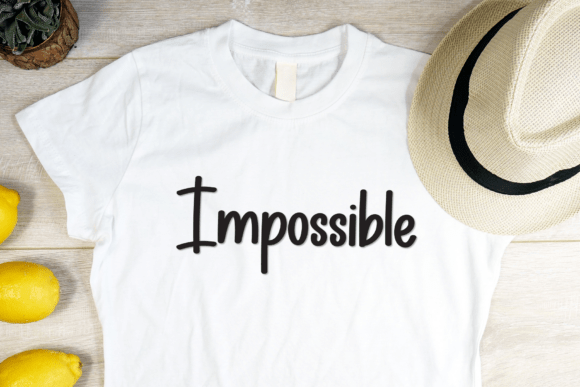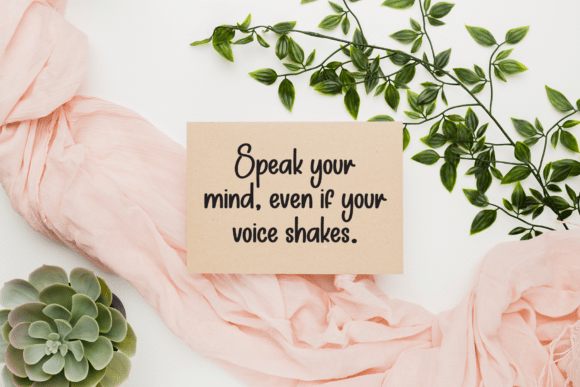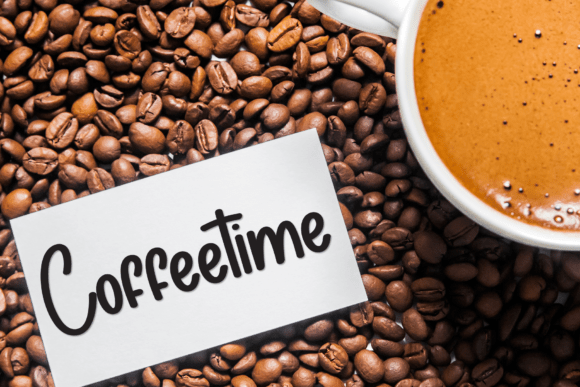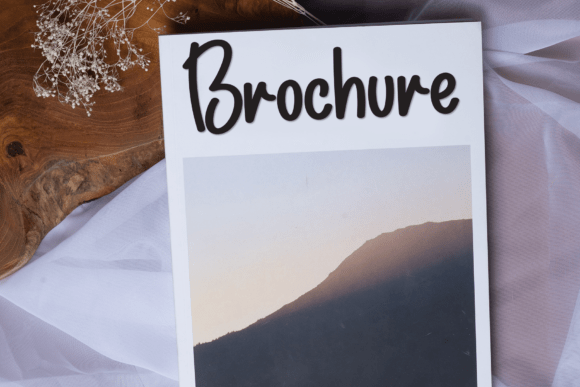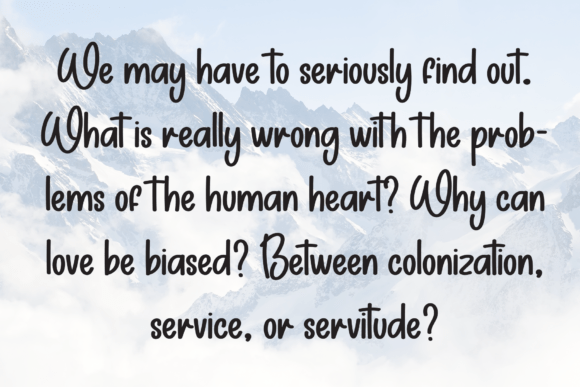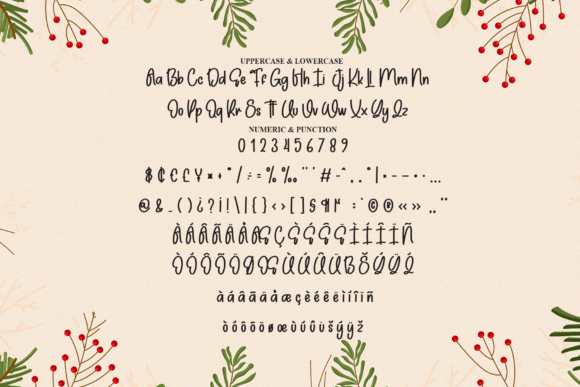
Introduction to Groovy Christmas Font
As you sit down to plan your holiday marketing materials, the excitement of the season can be overwhelming. But, let’s face it, finding the perfect font to match your festive vibe can be a challenge. That’s why we’re thrilled to introduce you to the Groovy Christmas Font, a design resource that’s sure to bring a smile to your face and a dash of holiday cheer to your creative project.
With its bold, modern display style and smooth, rounded strokes, the Groovy Christmas Font is the perfect way to add a playful, vintage twist to your seasonal marketing materials. Whether you’re designing holiday party invitations, festive social media graphics, or Christmas cards, this high-quality font is sure to make your design stand out.
Key Features of Groovy Christmas Font
- Unique and festive design for creative projects and holiday-themed materials
- Large character set with support for Latin and Cyrillic alphabets, as well as special characters and symbols
- Perfect for use in digital design, print materials, and web applications, including social media graphics, posters, and greeting cards
Honest Review: Groovy Christmas Font
I recently stumbled upon the Groovy Christmas Font, and I must say it’s been a fantastic addition to my design resource collection. This font is perfect for any creative project that needs a touch of festive cheer.
- What works well: ✨ The high-quality design of the font makes it suitable for both digital and print media. It’s a great choice for designing holiday-themed graphics, cards, or even website elements.
- What works well: ✨ The font is highly customizable, making it easy to adjust the style to fit your specific design needs.
However, there are a few limitations to consider: ⚠️ The font might not be suitable for formal or professional projects, as it’s quite playful and festive.
Overall, I’m thoroughly impressed with the Groovy Christmas Font. It’s a fantastic design resource that’s sure to add some holiday magic to your creative projects. With its free download option, transparent background, and high-quality design, it’s a must-have for any designer looking to create something special this holiday season.
How to Use Groovy Christmas Font
Here are a few tips for getting the most out of the Groovy Christmas Font:
- Use the font in conjunction with other design elements, such as images and shapes, to create a cohesive design.
- Experiment with different font sizes and colors to create a visually appealing design.
- Use the font on a high-quality image or background to create a professional-looking design.
The Groovy Christmas Font is perfect for a variety of creative projects, including:
- Christmas card designs
- Gift tag designs
- Party invitation designs
- Winter-themed social media posts
Compared to Groovy Christmas Font, Jolly Christmas Font has a more simplistic design, making it easier to read and use in various creative projects. While Groovy Christmas Font is more elaborate, Jolly Christmas Font’s simplicity makes it a great choice for designs where legibility is crucial.